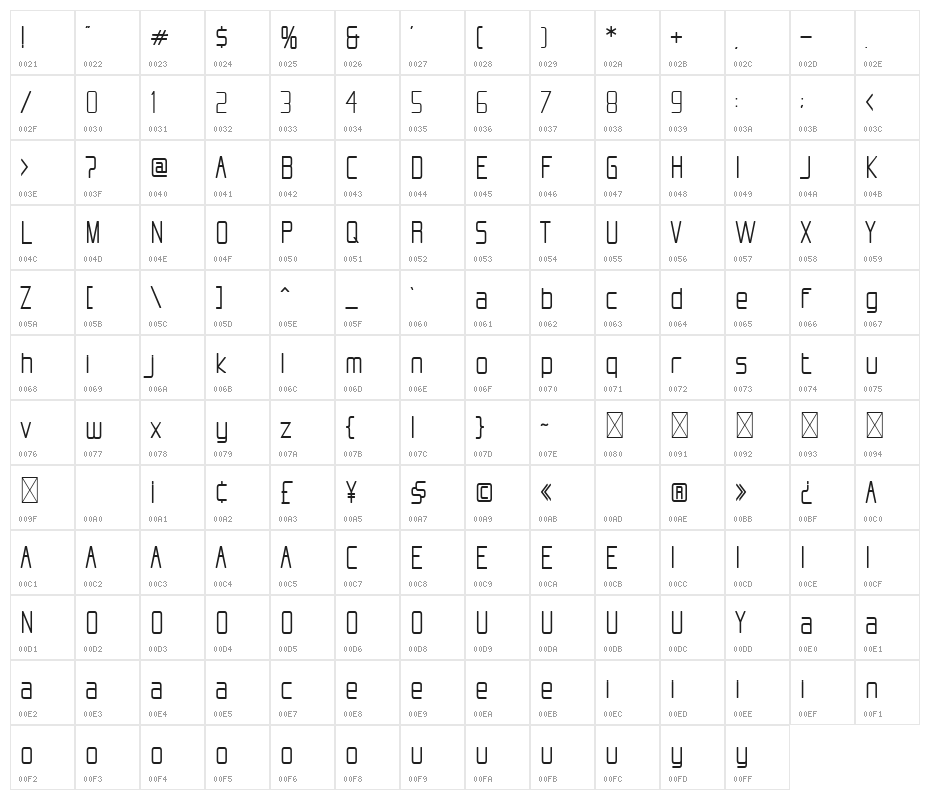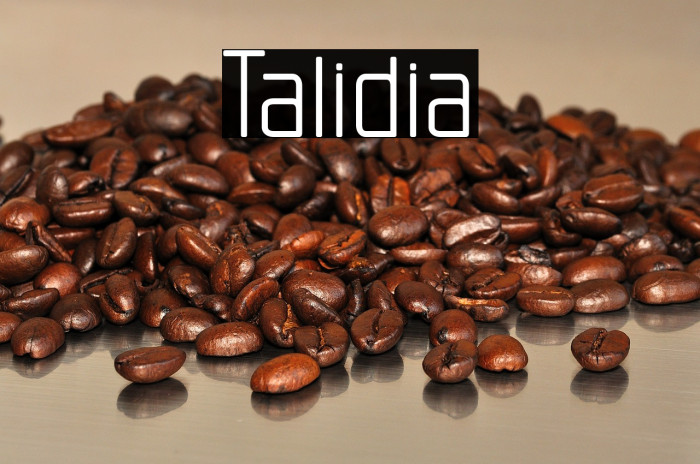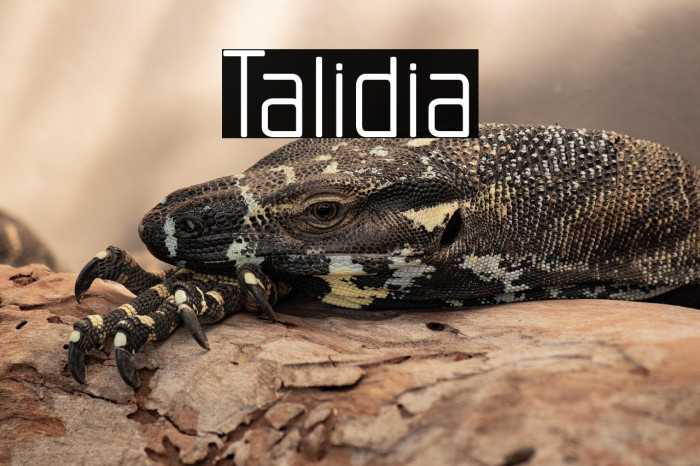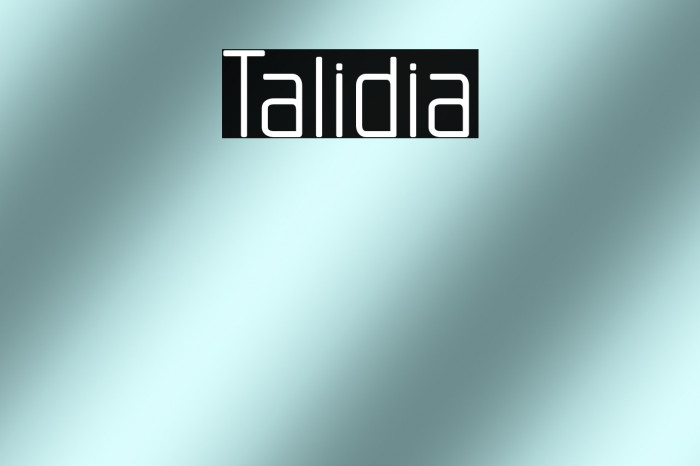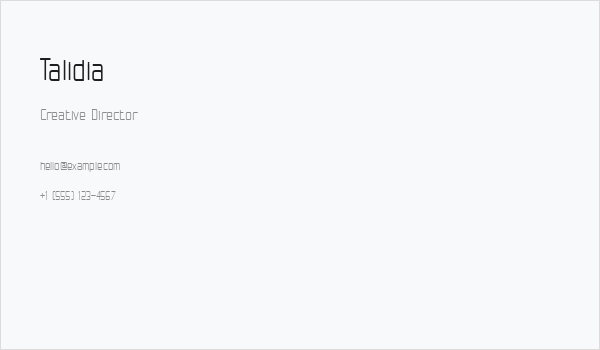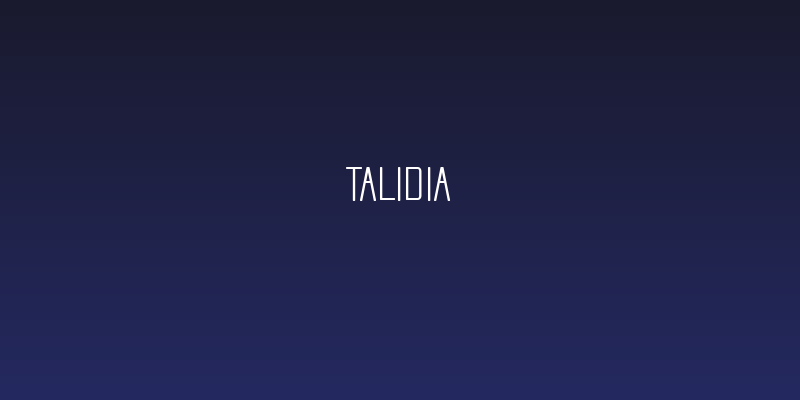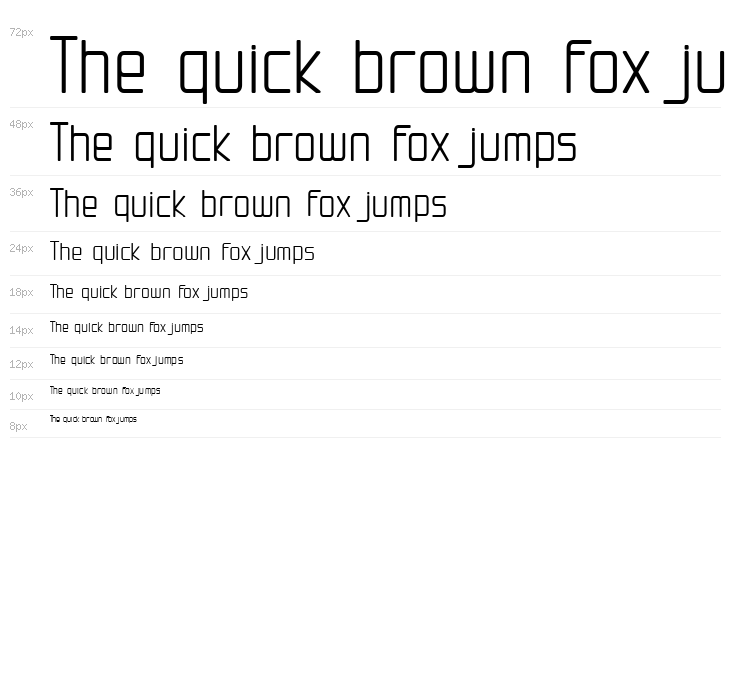
Talidia Font
Talidia Description
This font features a modern, geometric design with clean lines and a structured appearance. The characters are uniform in width, giving it a monospaced feel, though it is not strictly monospaced. The uppercase letters are tall and narrow, while the lowercase letters maintain a consistent height, creating a harmonious balance. The numerals are distinct and easily legible, matching the overall style of the alphabet. Special characters are included, maintaining the same geometric and minimalistic aesthetic. This font is suitable for digital displays and modern design projects, offering a sleek and contemporary look.
| Use Case | Headlines, Logos, Digital displays |
| Proposed Projects | Ideal for digital displays, tech branding, modern posters, and user interfaces. |